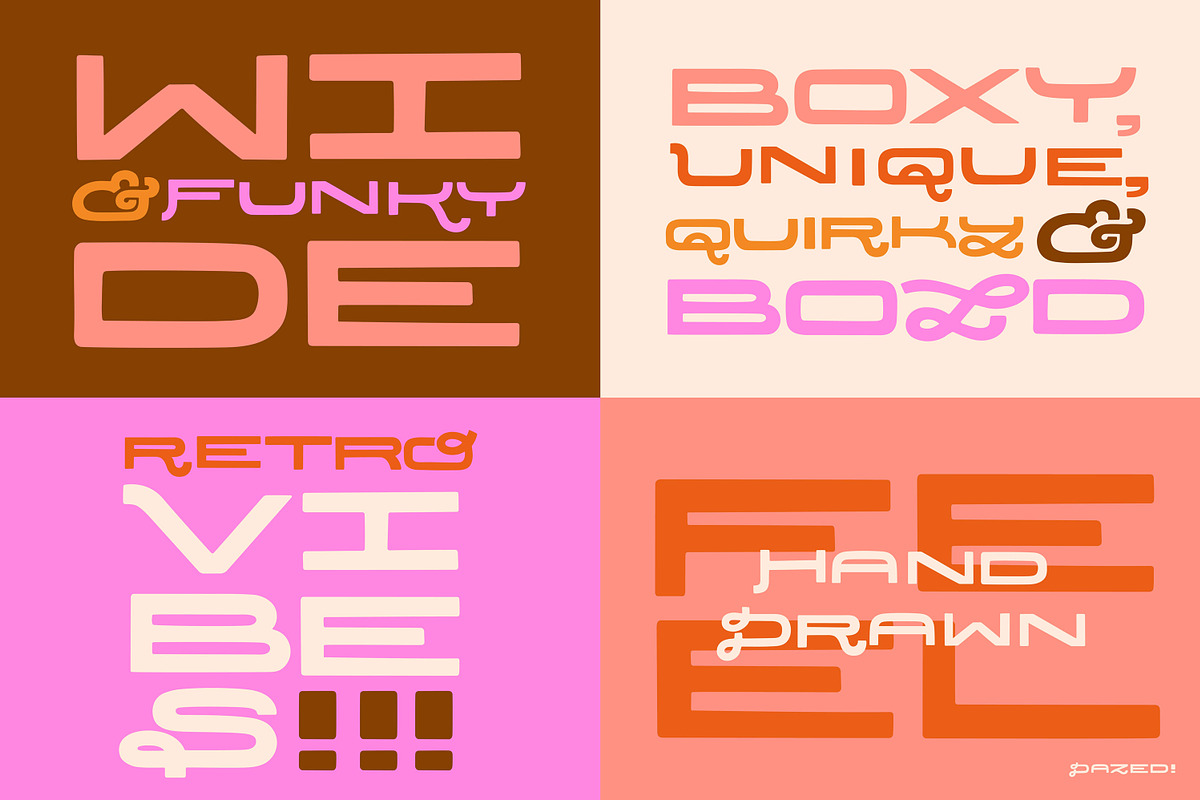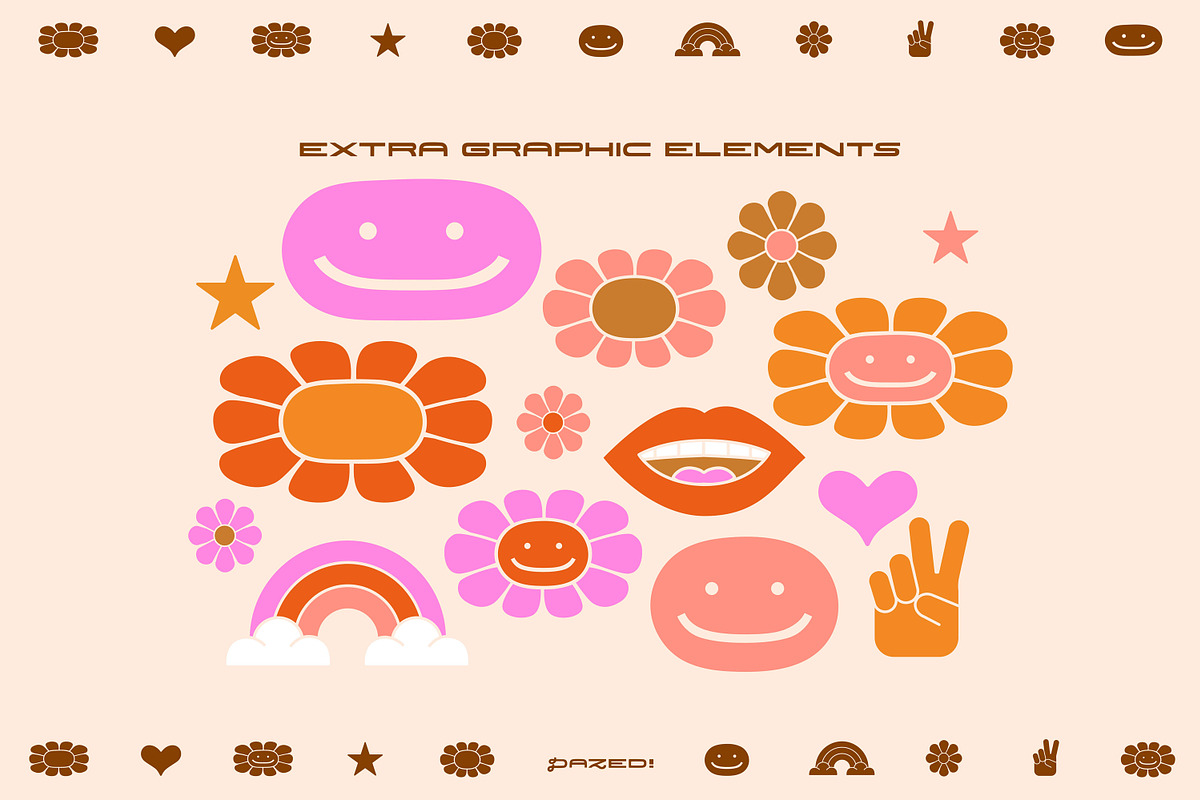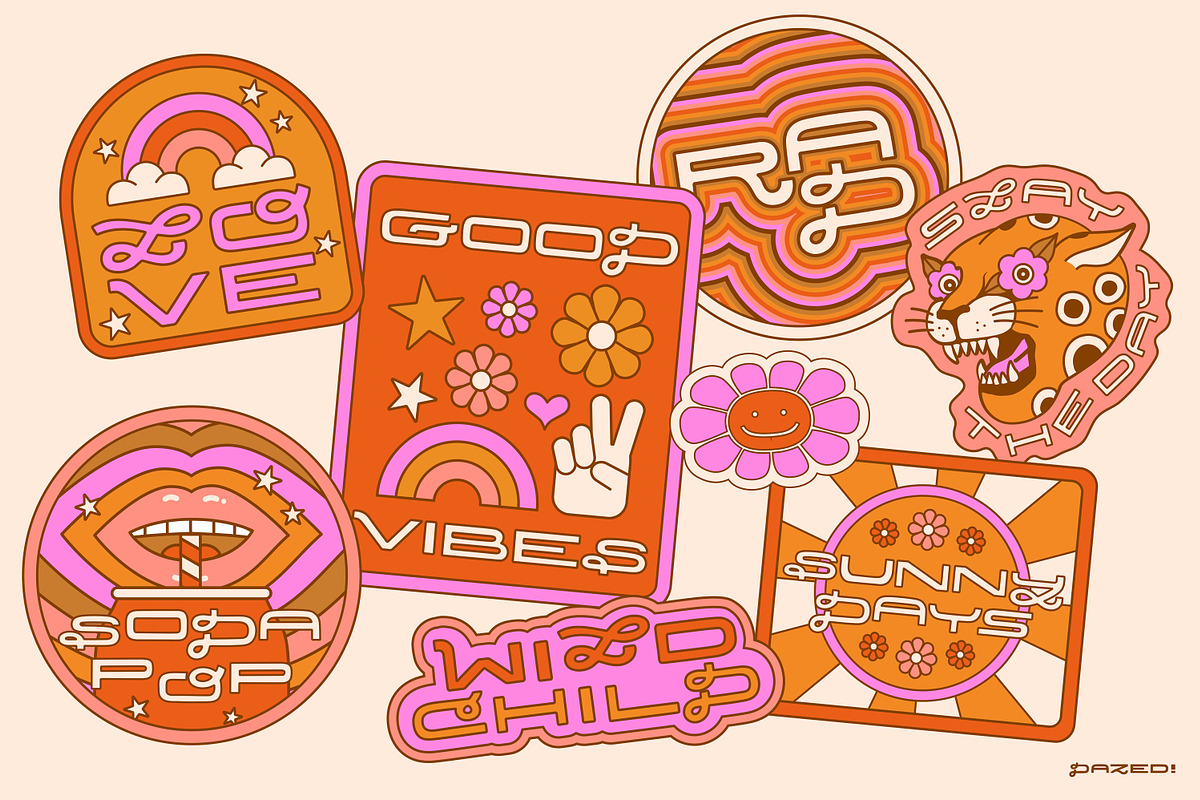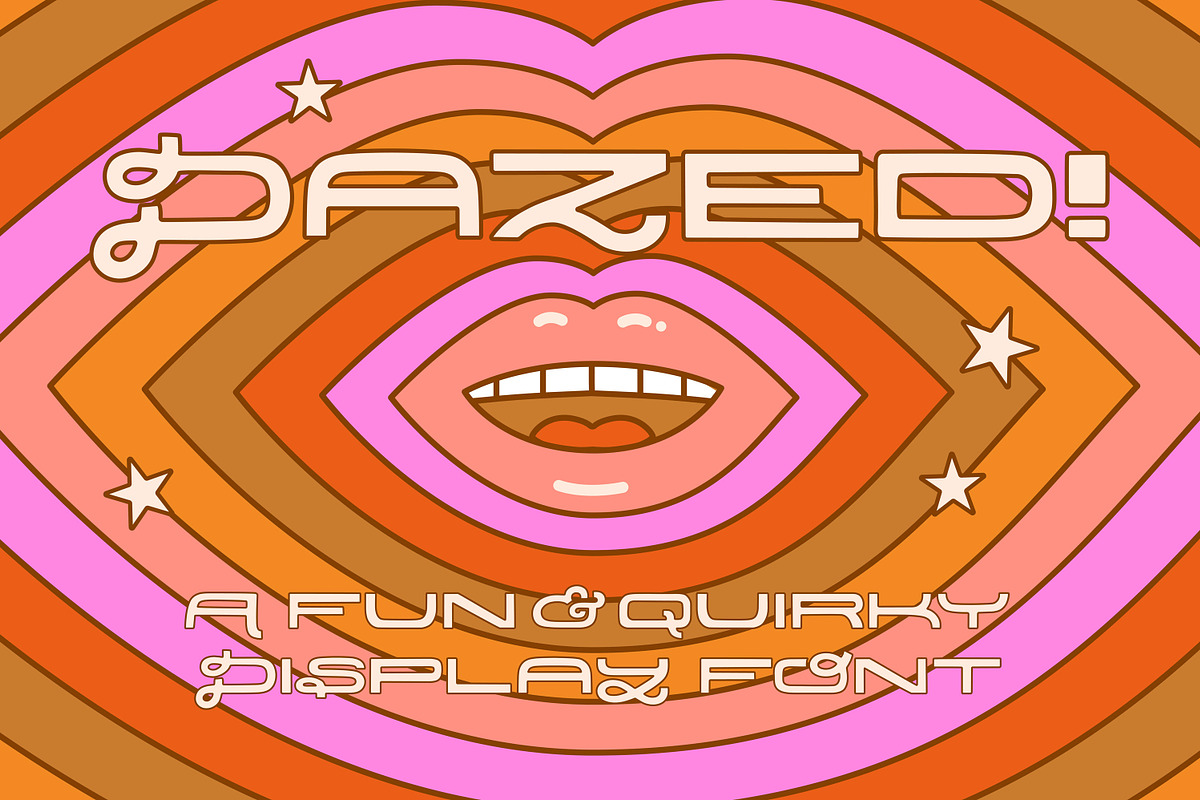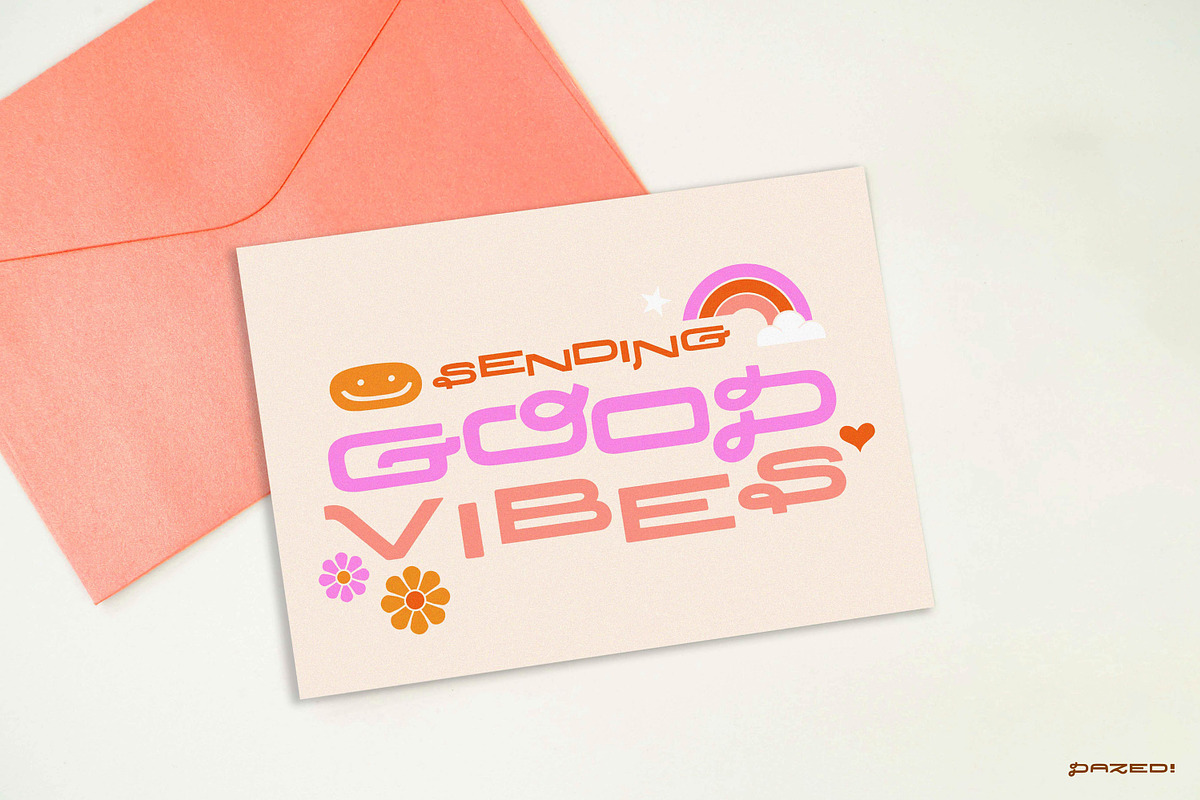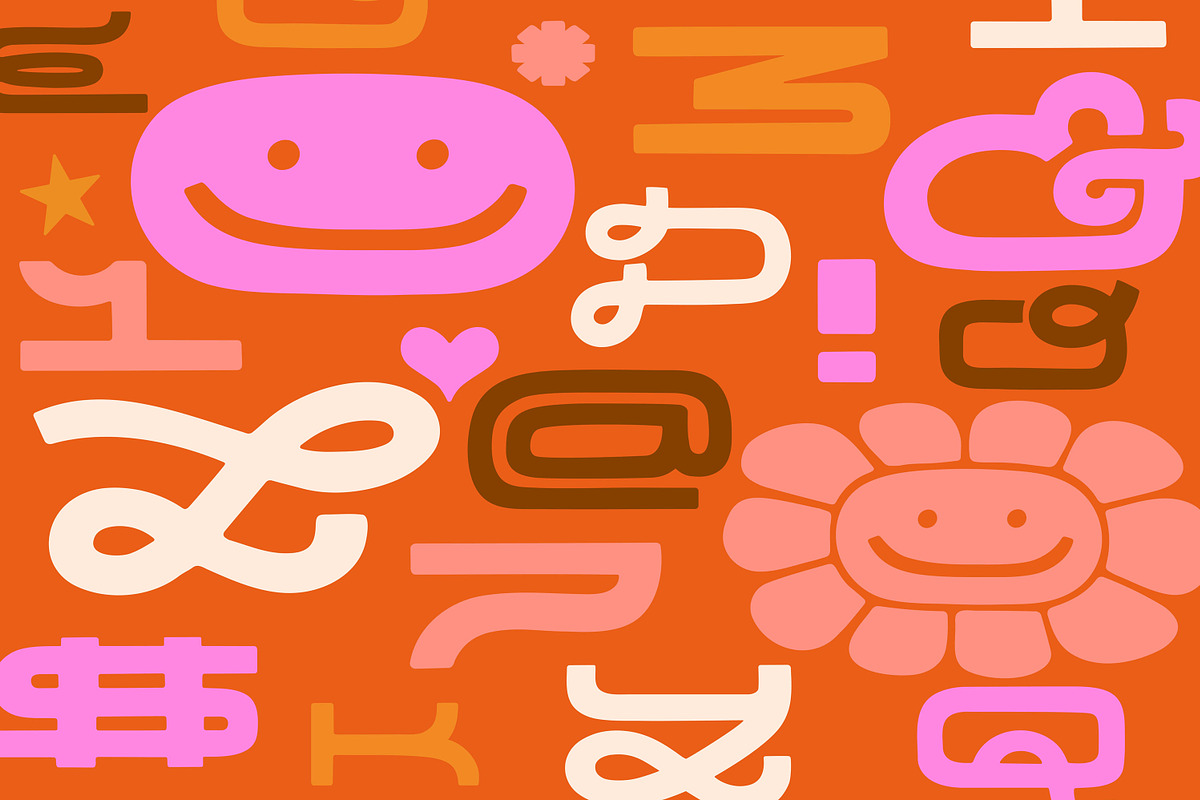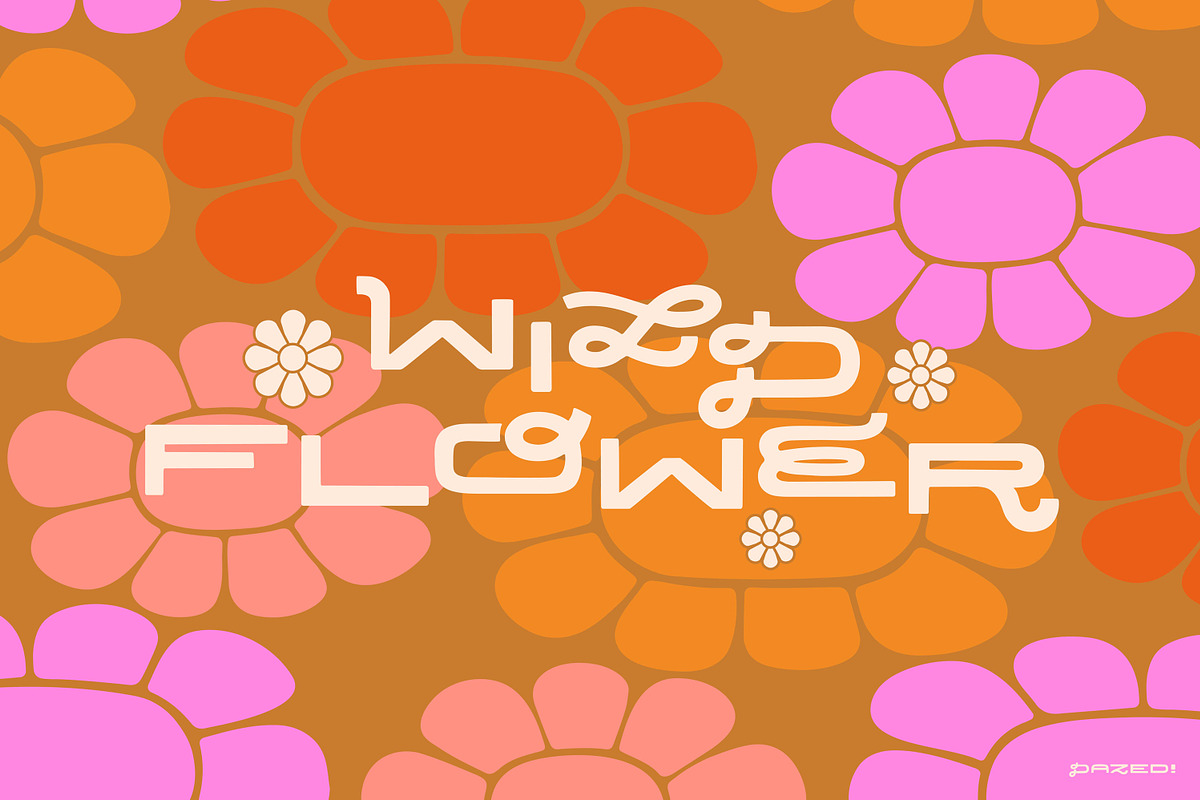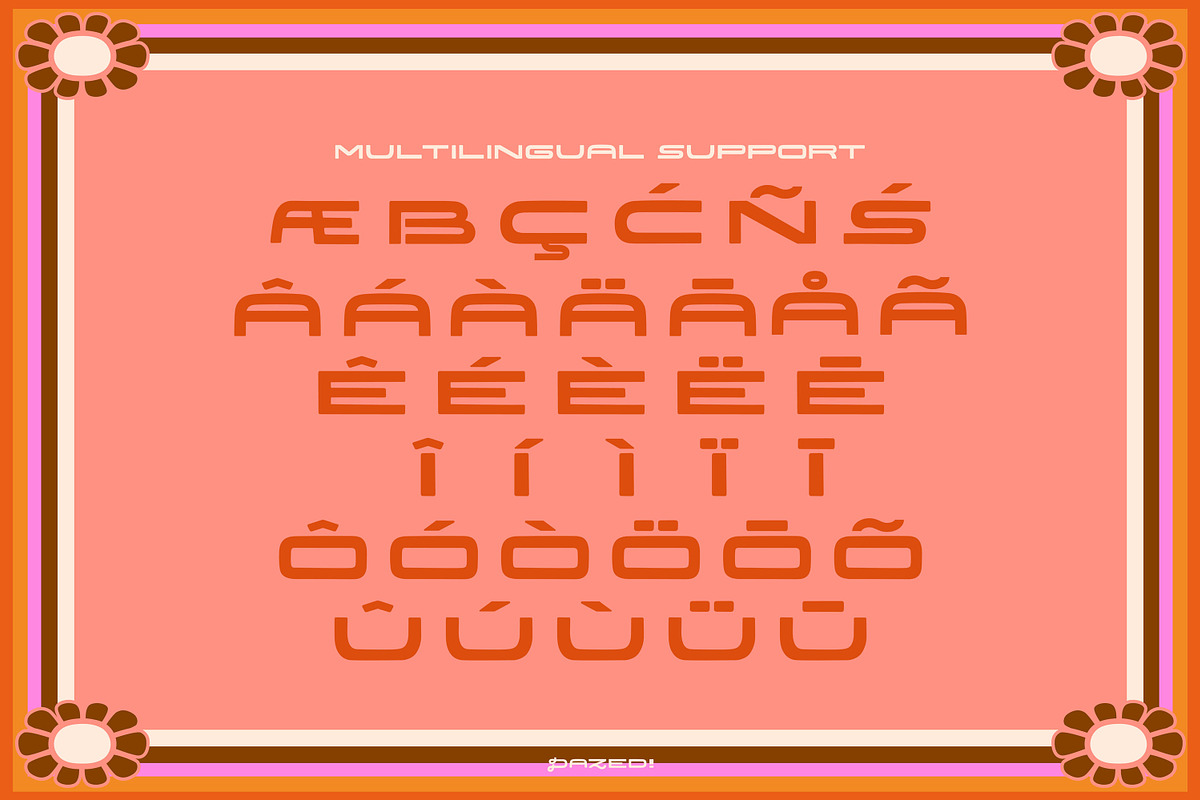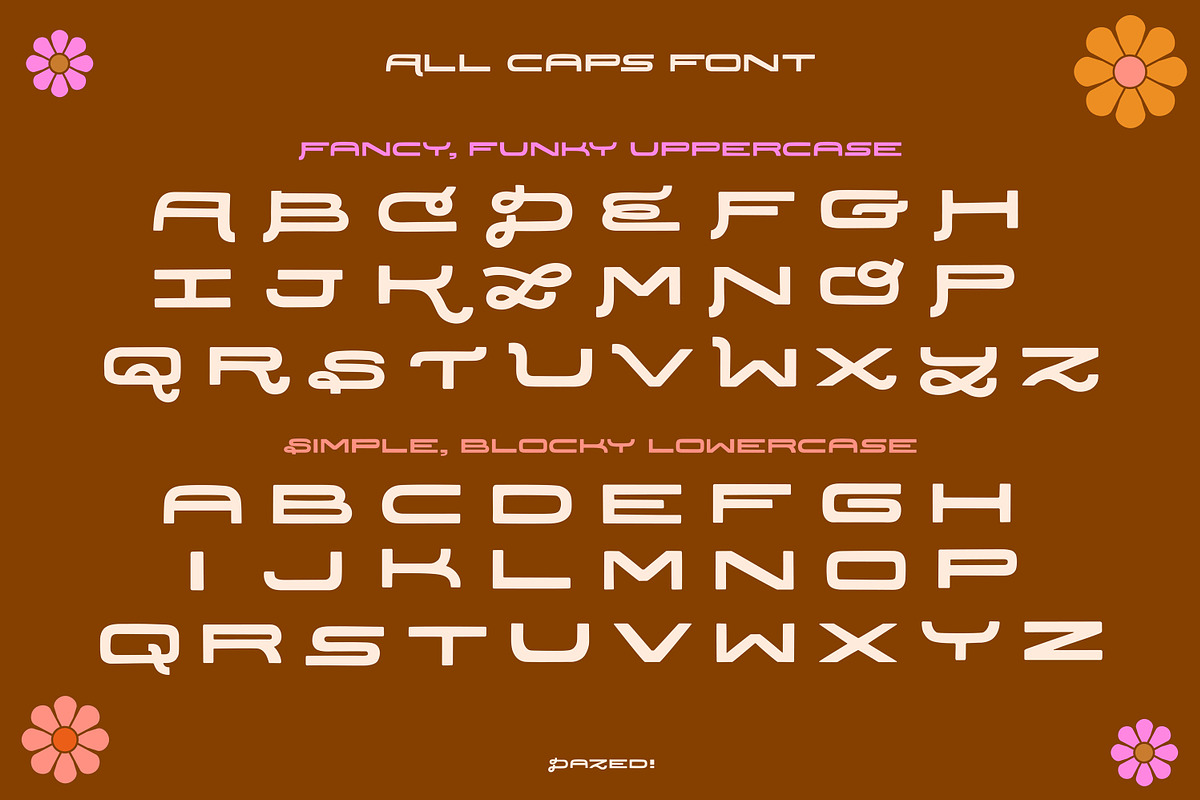
Dazed! A Quirky Retro Font & Extras
Say hello to Dazed, a fun, quirky, super extended hand-drawn font with a retro feel. Dazed is an all caps font with fancy, funky uppercase letters and simple, blocky lowercase letters. Mix and match the two styles for super unique and groovy lettering. Dazed is an imperfect font for that hand-lettered feel and best used large as a display font. Extra design goods included to complement your new font!
- 1 font weight: ultra expanded
- All caps
- 2 unique letter styles: funky uppercase letters & simple lowercase letters
- Multilingual support for Basic Latin, Western European, & Euro